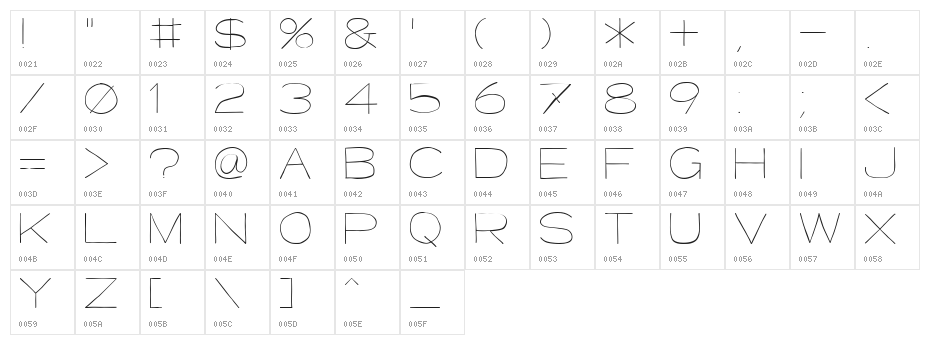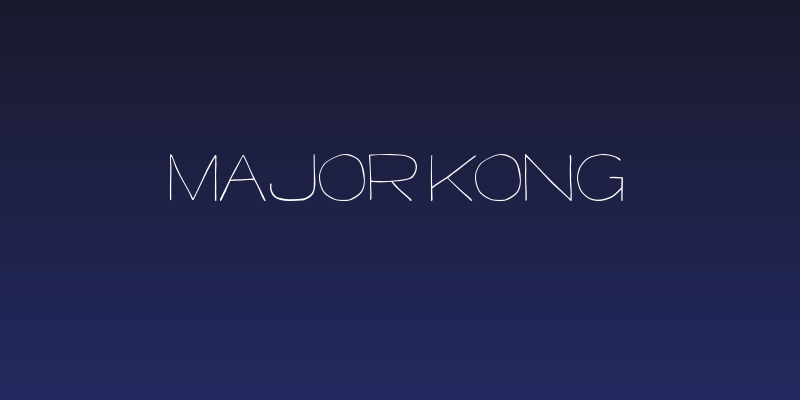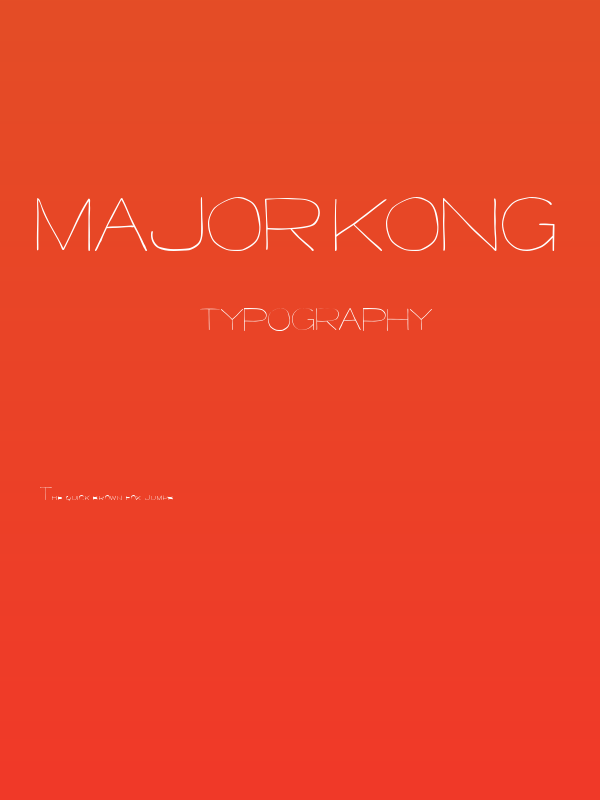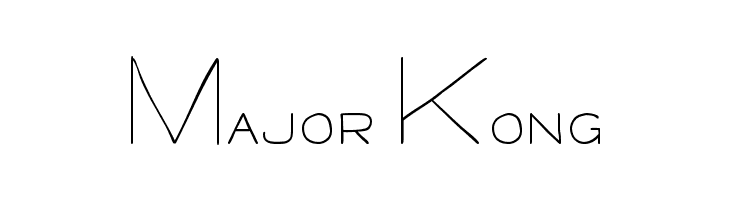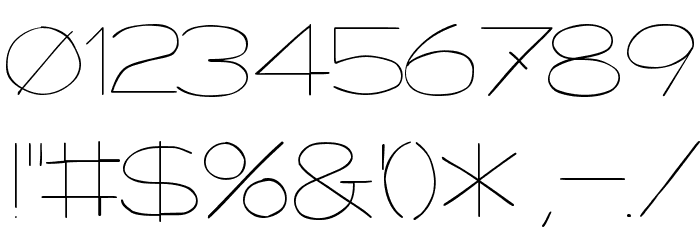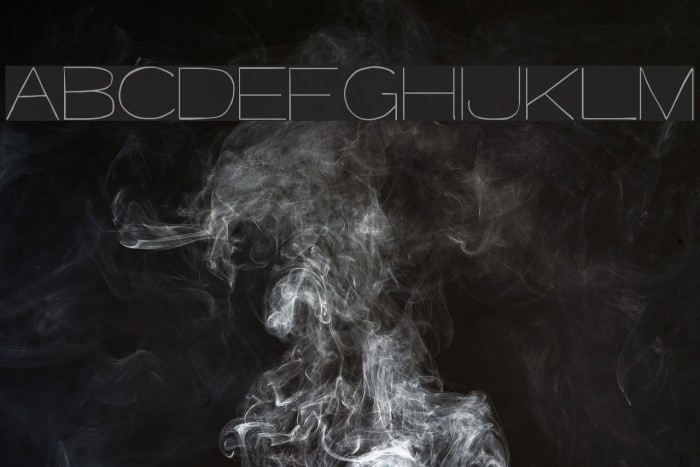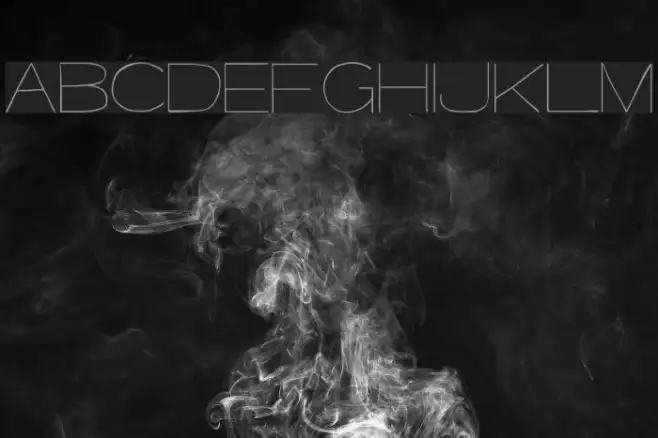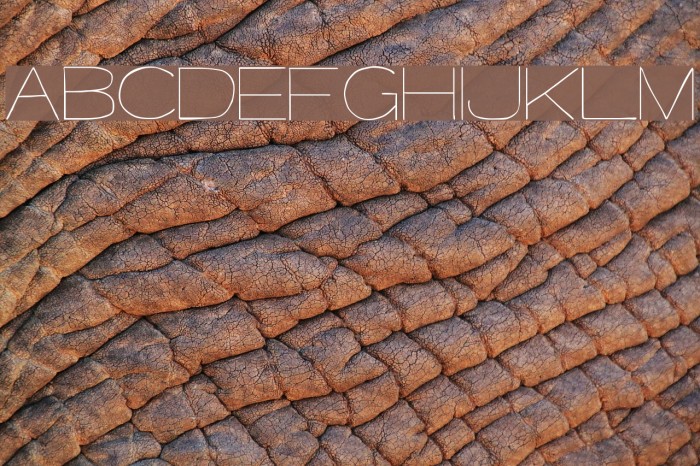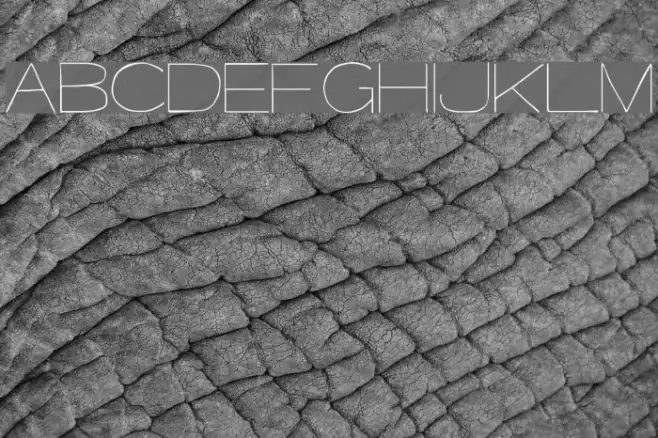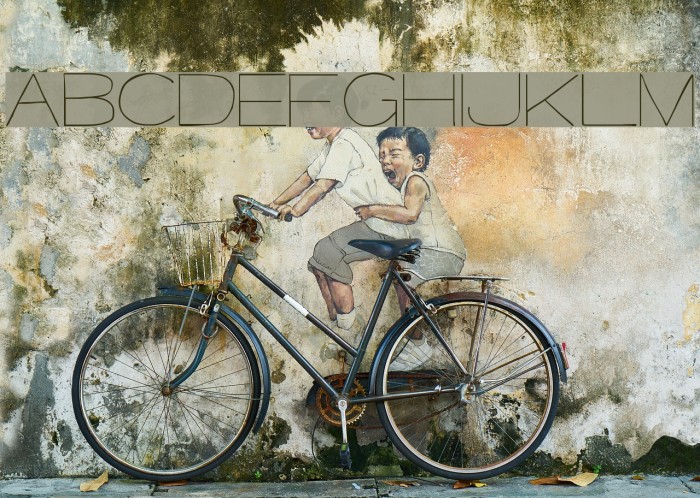
Major Kong Font
Major Kong Description
This font features a modern and minimalist design with clean, geometric lines. The uppercase and lowercase letters are crafted with a consistent stroke width, giving it a sleek and contemporary appearance. The numerals and special characters maintain the same aesthetic, ensuring uniformity across all elements. The font's structure is open and airy, with a focus on simplicity and elegance. Its design is highly legible, making it suitable for various applications where clarity is essential.
| Proposed Projects | Ideal for branding, advertising, digital interfaces, and editorial design where a modern and clean look is desired. |